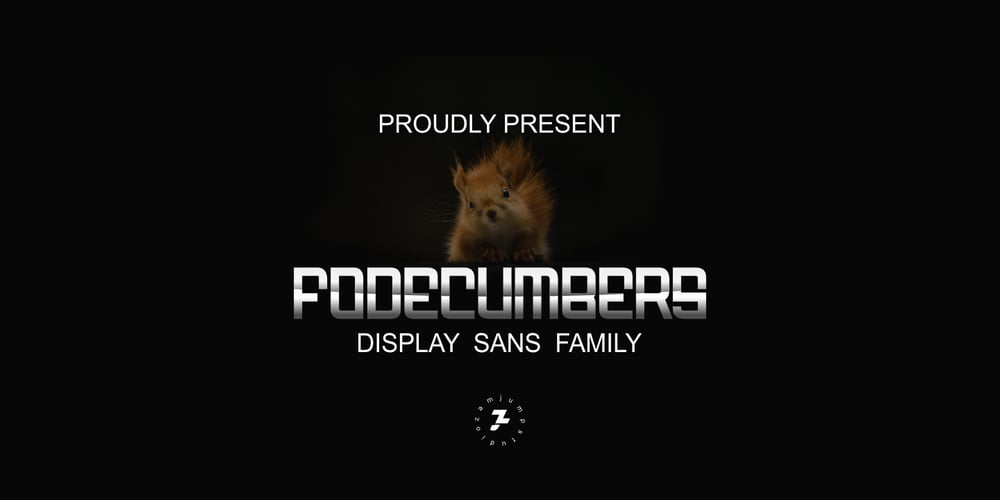
Fodecumbers Display Font Family was designed by Zamjump and published by Zamjump. Fodecumbers Display contains 13 styles and family package options. Fodecumbers is a strong FontFamily and Sans sophisticated look. Inspired by dynamic squares can be felt through controlled letterforms and a modern twist. Balance of hard lines and smooth curves. Each font in the family can be standalone, dynamic, and authoritative on its own, or mix it with italics for the tagline in a logo. it’s really worth it.Fodecumbers includes all thirteen uppercase fonts: Four weights, two outlines, seven italics.FEATURESFour weights / Italics / Lines / Numbers & Punctuation / Extensive Language SupportUSEFodecumbers works well in every branding, logo, magazine, film. The different weights give you the full Fodecumbers is a strong FontFamily and Sans sophisticated look. Inspired by dynamic squares can be felt through controlled letterforms and a modern twist. Balance of hard lines and smooth curves. Each font in the family can be standalone, dynamic, and authoritative on its own, or mix it with italics for the tagline in a logo. it’s really worth itFodecumbers includes all thirteen uppercase fonts: Four weights, two outlines, seven italics.FEATURESFour weights / Italics / Lines / Numbers & Punctuation / Extensive Language SupportUSEFodecumbers works well in every branding, logo, magazine, film. The different weights give you the full range to explore a whole host of applications, while the fonts outlined give a real modern feel to any project.Any specific license questions or questions, feel free to contact zamjump@gmail.comzamjump